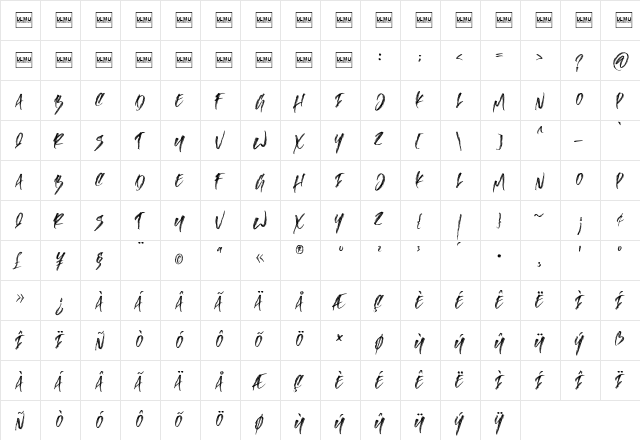
Canadian Brusher Regular
| Foundry | Motokiwo |
| Designer | Anton Cahyono |
Design Context for Canadian Brusher Typeface
Canadian Brusher flows with the natural rhythm of handwritten lettering, making it ideal for designs that call for warmth and personal expression.